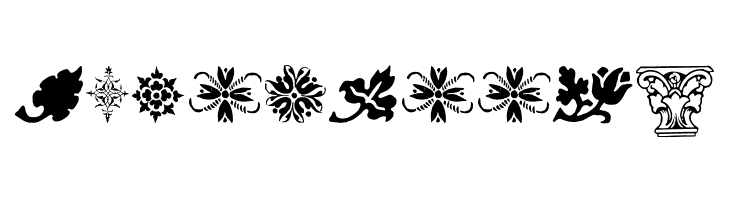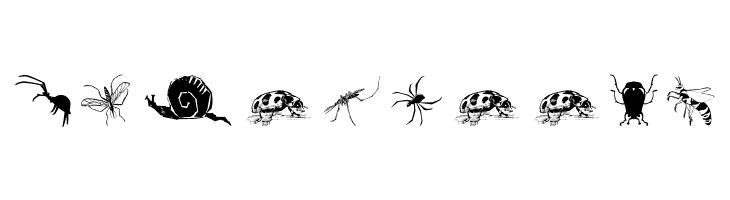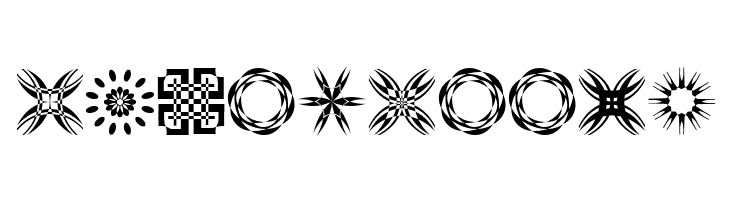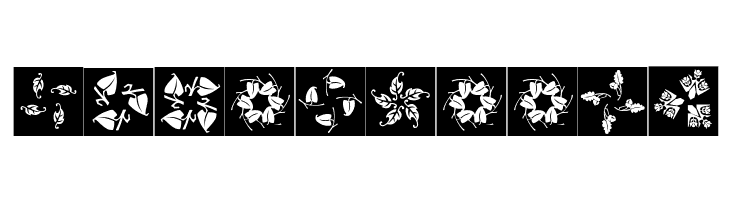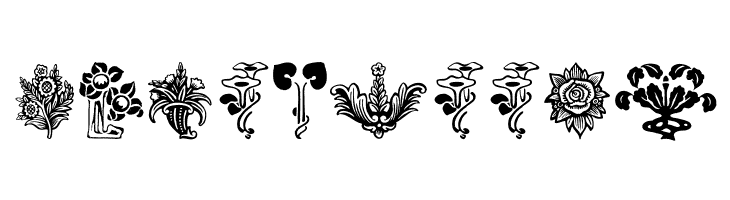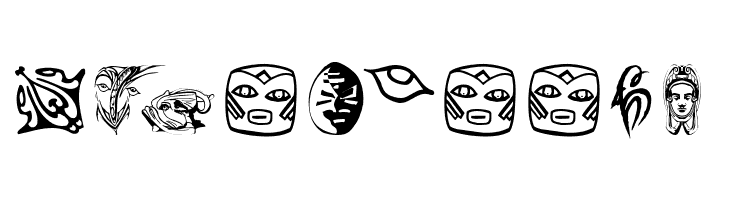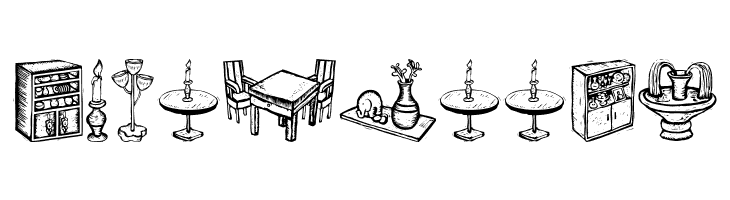
• PrintersOrnamentsOne
• Insects07
Illustrative dingbat font with insect and nature-themed pictograms.
• Meadings
Ornamental geometric dingbat font with intricate, symmetrical designs.
• OrnaRosettes
Highly decorative ornamental motif font with floral and geometric elements.
• ForCongratulations
Cartoon dingbat font with celebration and party-themed illustrations.
• AbstractOrnamentBatsTwo
Ornamental dingbat set featuring abstract and decorative motifs.
• PlantenNBlomen
Highly detailed floral and botanical dingbat illustrations.
• Artefakte
A decorative symbol font with artifact and tribal-inspired pictograms.
• DingsbumsPlus
A playful dingbat font with diverse, bold symbols and abstract icons.
• WoodcutFurnitures
Hand-drawn woodcut-style furniture and decor illustrations as font glyphs.